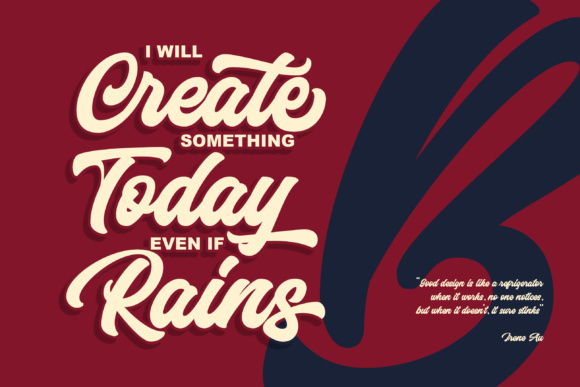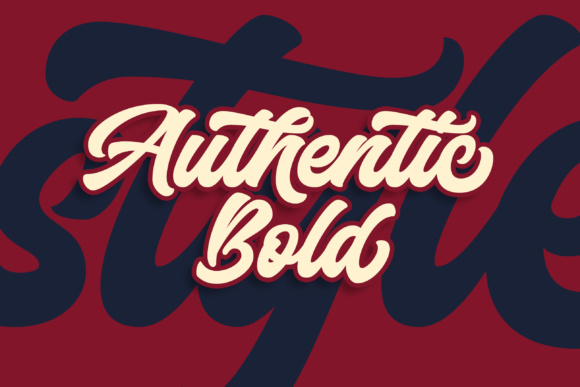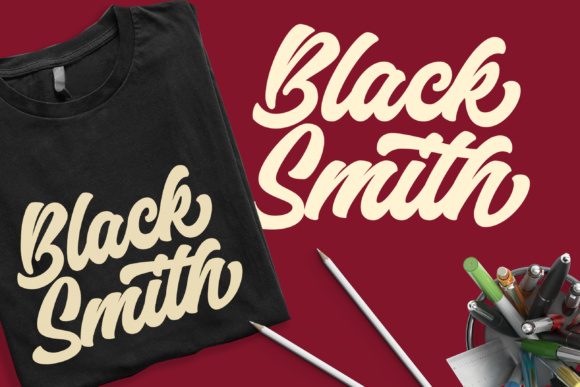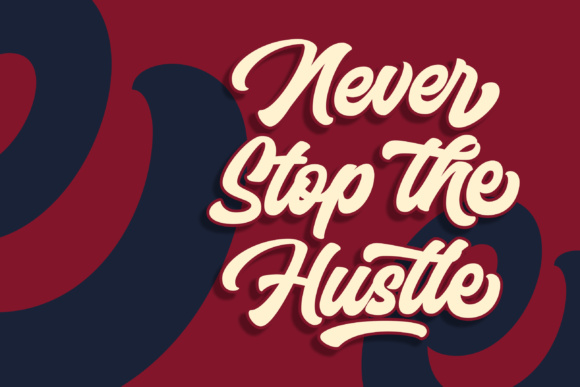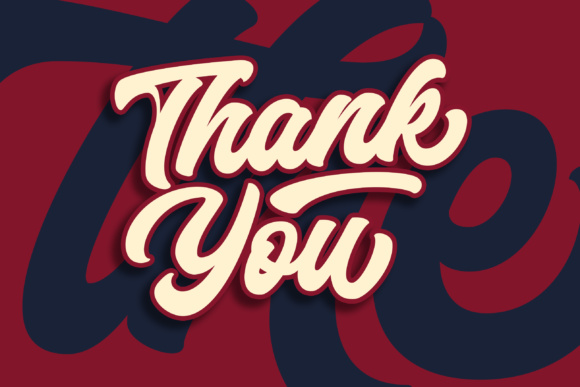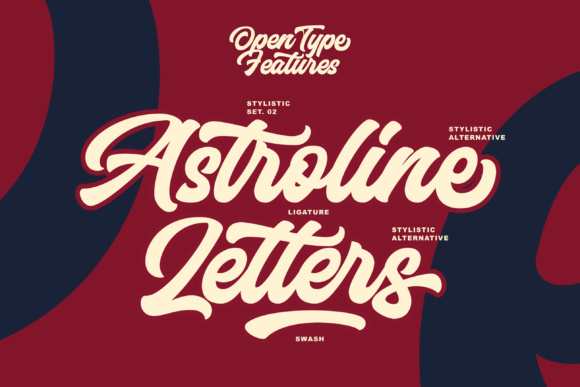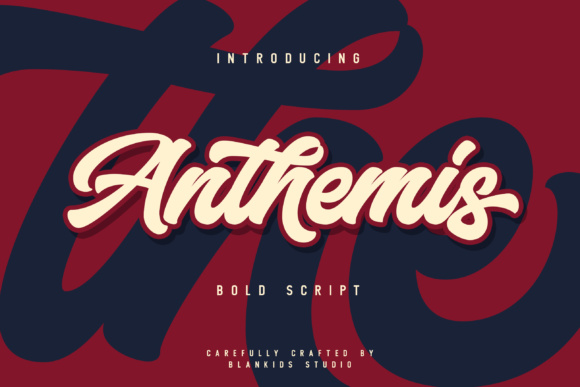
The Designer’s Delight: Anthemis Font
I still remember the design project that led me to discover the stunning Anthemis Font. I was working on a branding project for a luxury fashion brand, and I was struggling to find the perfect font that would capture their high-end essence. The client was specific about wanting a bold, script font that would make their logo stand out. After hours of searching, I stumbled upon Anthemis, and it was love at first sight! ✨
So, what makes Anthemis so special? Let’s dive into the good stuff and a few quirks I’ve discovered.
- ✨ Stunning bold script: Anthemis is a true showstopper, with elegant lines and a sophisticated feel.
- ✅ Versatile: This font is perfect for logos, packaging, apparel, and so much more.
- 💥 Attention-grabbing: Anthemis is designed to make a statement, and it definitely delivers.
Small Quirks
While Anthemis is an amazing font, I’ve noticed a few minor limitations:
- 🤔 Limited use in body text: Due to its bold nature, Anthemis might not be the best choice for lengthy paragraphs.
- ⚠️ Some letter combinations: Occasionally, certain letter combinations might not flow as smoothly as you’d like.
The Story Behind Anthemis
While I couldn’t find a detailed account of Anthemis’ creation, I like to imagine that it was designed by a team of typographers who wanted to create a font that would make designers swoon. Perhaps they drew inspiration from classic luxury brands and aimed to create a font that would evoke feelings of sophistication and glamour.
Q: What is Anthemis Font best used for?
A: Anthemis is perfect for branding, logos, packaging, apparel, and any project that requires a bold, statement-making font.